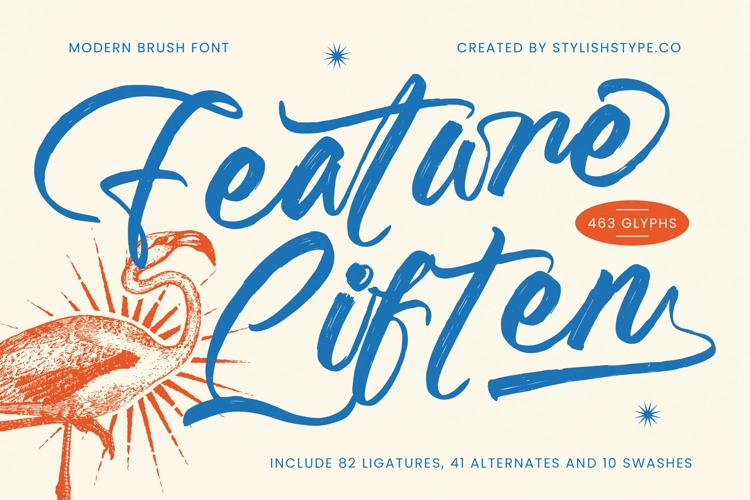
Feature Liften - Modern Brush Font
Feature Liften - Modern Brush Font. Featuring 463 total glyphs, including 82 ligatures, 41 stylistic alternates, and 10 dramatic swashes, this typeface allows for truly customized and typographically realistic results. These extensive OpenType features enable seamless connectivity between characters, ensuring an authentic, handcrafted aesthetic that elevates standard copy to artisan-level design.